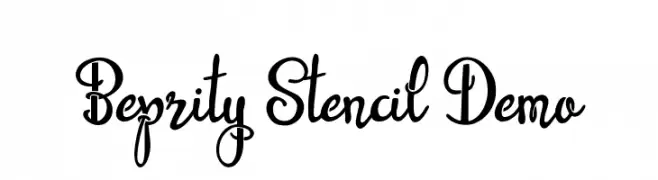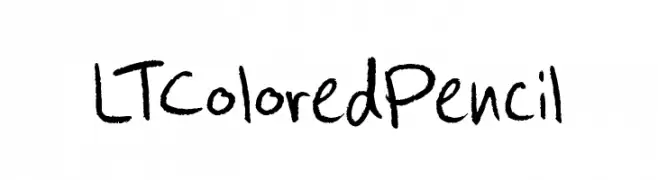
A modern, rounded stencil font with bold, expanded characters.
An elegant script font with a modern stencil effect, featuring ornate swashes and loops.
A bold, stencil-style font with high contrast and tight spacing.
A bold, futuristic stencil font with high contrast and geometric shapes.
A playful, hand-drawn font with a colored pencil effect.
A bold, stencil-style font with geometric cutouts and a modern industrial feel.
A bold, flowing script font with a unique stencil effect.
A bold, geometric stencil font with a military-industrial aesthetic.
A modern, geometric stencil font with a futuristic and industrial design.
A playful, hand-drawn font with a colored pencil sketch style.